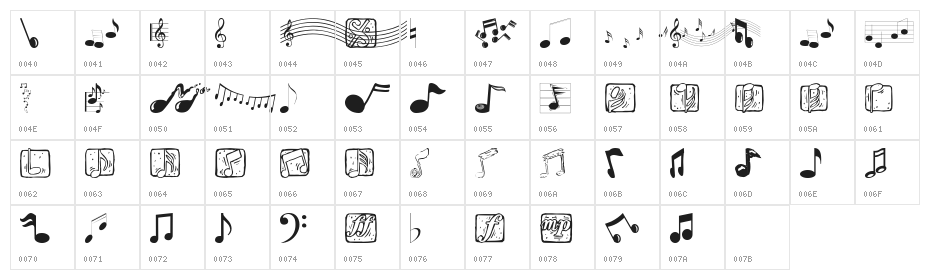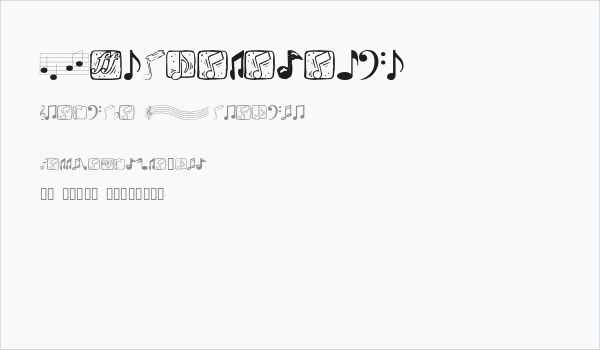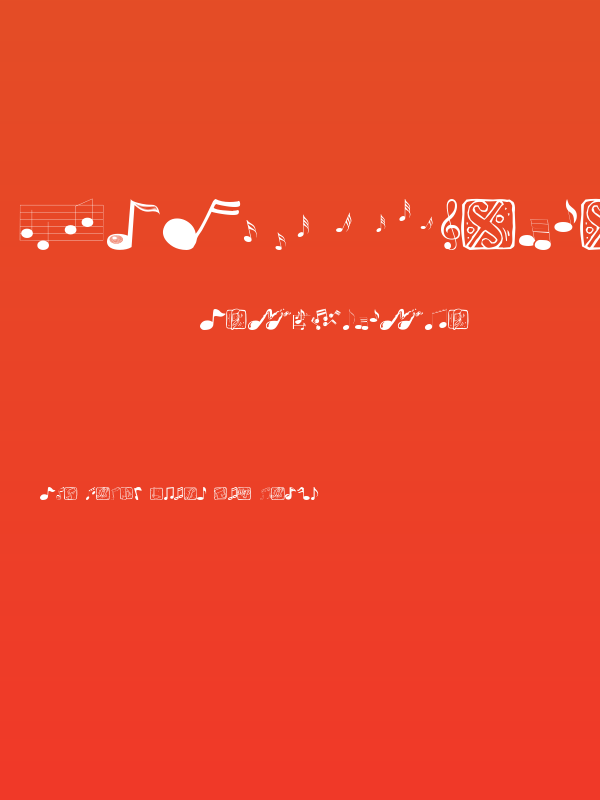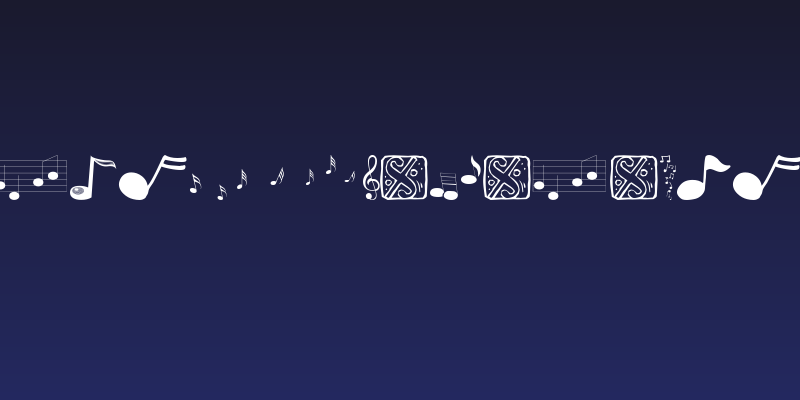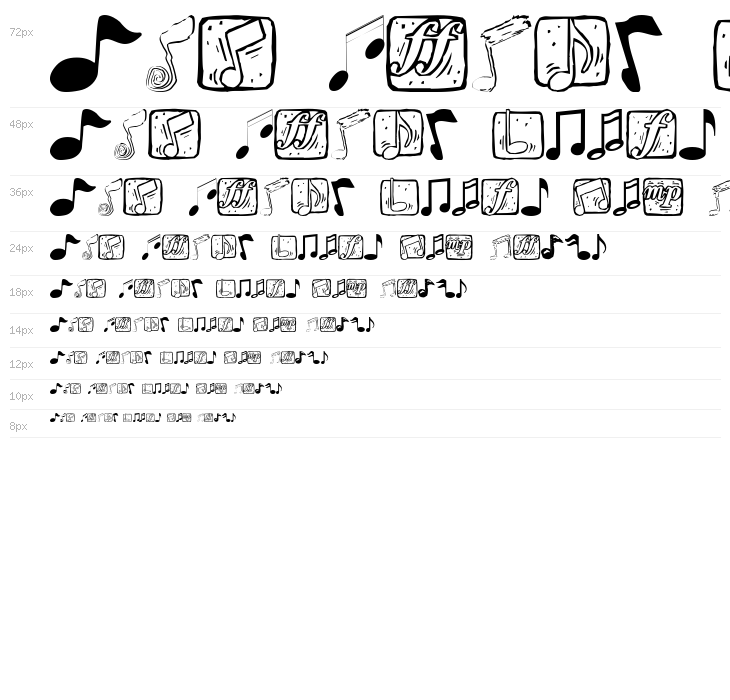
Musicelements Font
Musicelements Description
This collection of musical elements is a decorative set of symbols and icons inspired by musical notation and themes. It includes a variety of musical notes, clefs, and other related symbols, each designed with unique artistic flair. The elements are highly stylized, featuring intricate details and playful designs that capture the essence of music in a visual form. These symbols are perfect for adding a creative touch to music-related projects, offering a whimsical and artistic representation of musical concepts. The set includes both simple and complex designs, allowing for versatile use in various creative endeavors.
Use CaseLogos, Posters, Creative Design
Proposed ProjectsIdeal for music-themed posters, album covers, educational materials, and creative design projects.